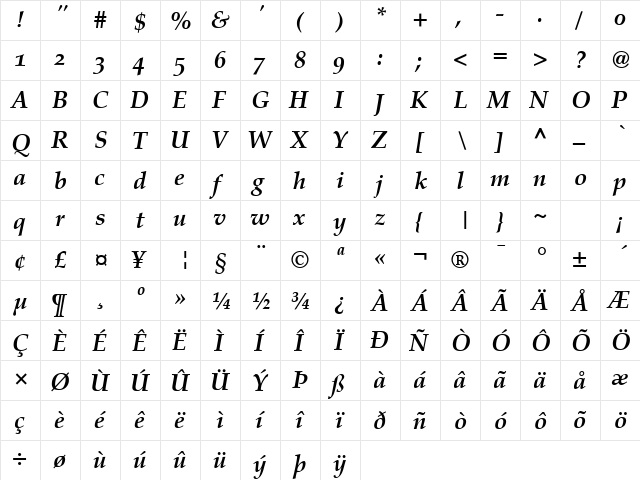
Palatino OsF Bold Italic Font Preview
Palatino OsF Bold Italic
Design Context for Palatino OsF Typeface
Palatino OsF offers clean, dependable letterforms without strong stylistic allegiance, making it a practical choice for designers who need flexibility. The slanted form adds forward momentum and visual energy. Its bold stroke weight gives it real presence on the page.
Pro Tip: Try Palatino OsF for annotation and caption copy alongside an upright companion — the contrast in angle creates a dynamic but ordered typographic system.